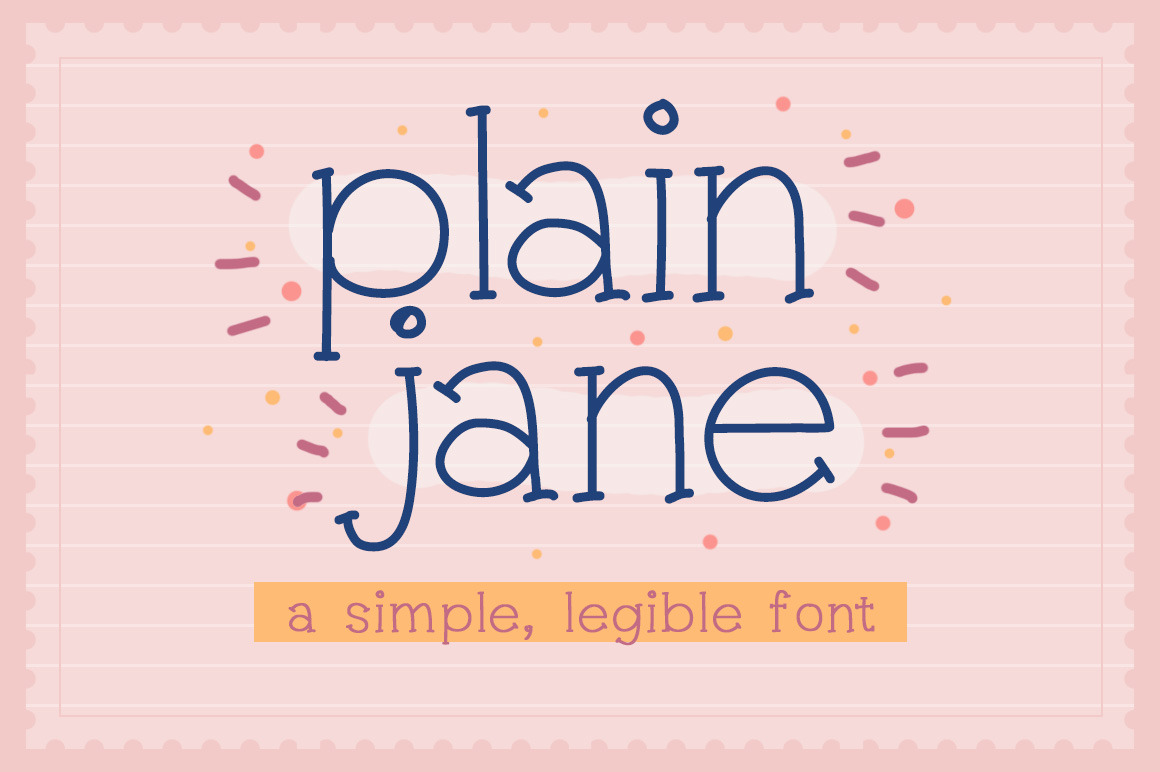
Plain Jane Font
Plain Jane is a simple font in two weights that's great for both display and body copy. It's legible even in big chunks of text and at small sizes, making this typeface very versatile.
- All uppercase
- All lowercase
- Numerals and punctuation
- Special letters for most of the European languages